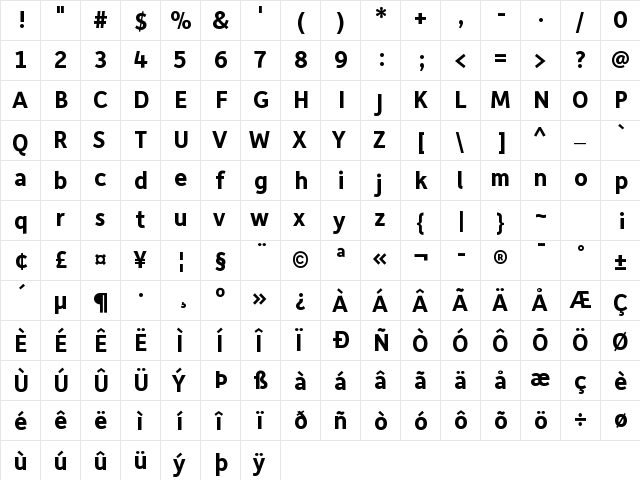
Depot Bold
| Foundry | C.Dickinson |
| Designer | C.Dickinson |
Design Context for Depot Typeface
Depot offers clean, dependable letterforms without strong stylistic allegiance, making it a practical choice for designers who need flexibility. The heavy weight commands attention and anchors typographic hierarchies.